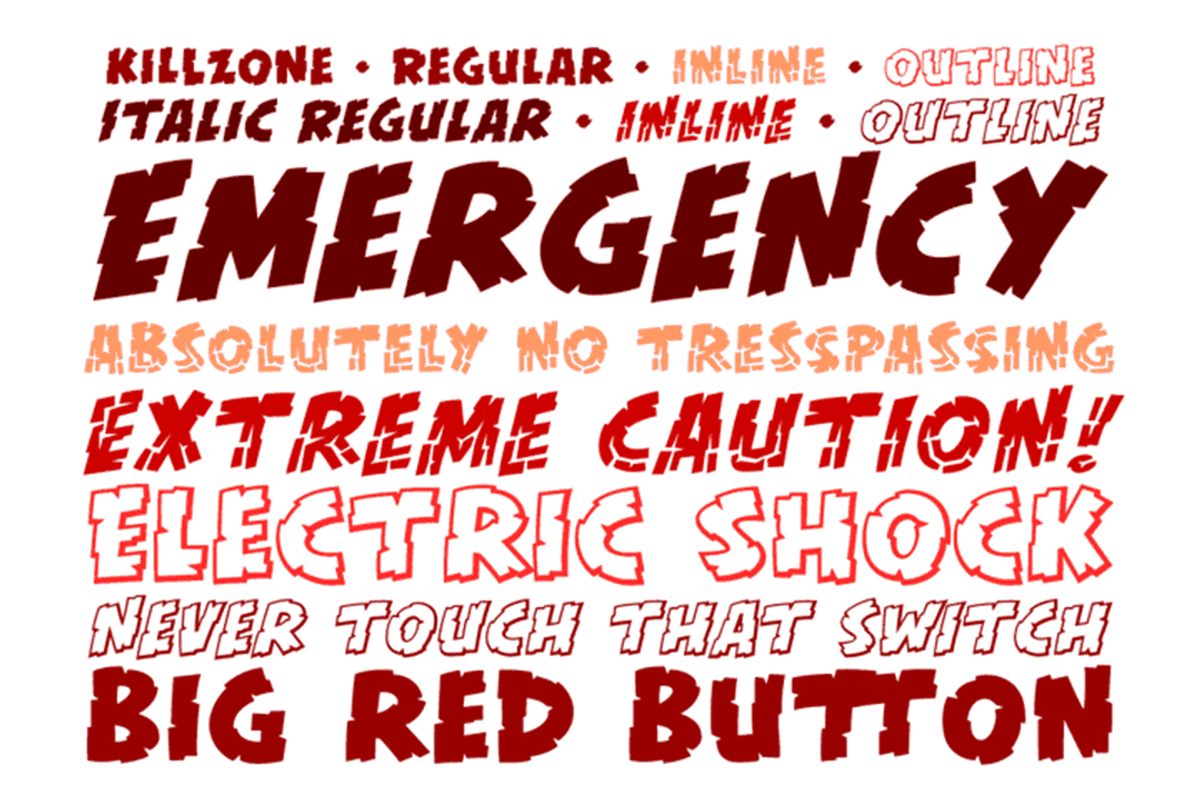
Killzone
Killzone by Comicraft Fonts is a font selected for branding, posters, packaging, typography.
Why Killzone is worth a look
Killzone by Comicraft Fonts fits naturally into Branding, posters, packaging, typography.